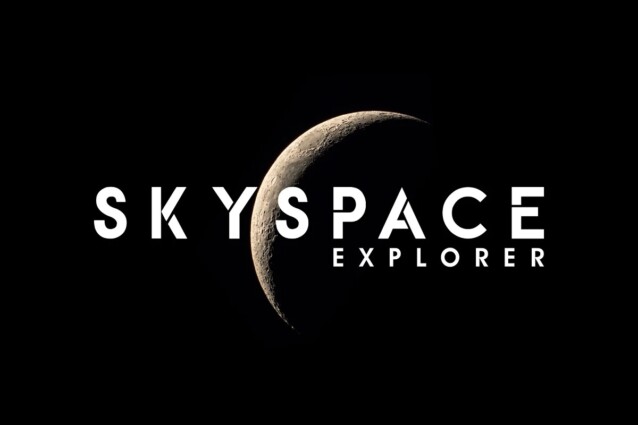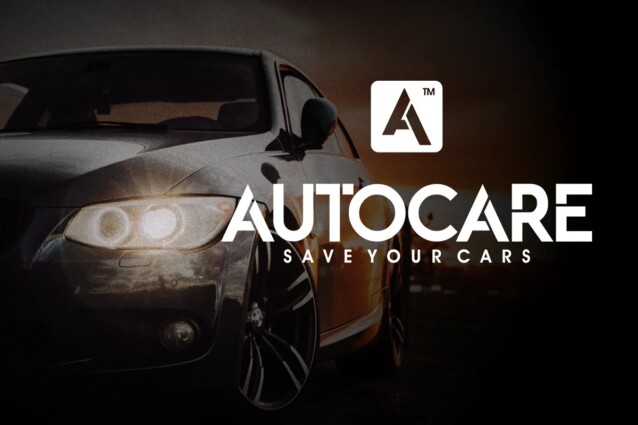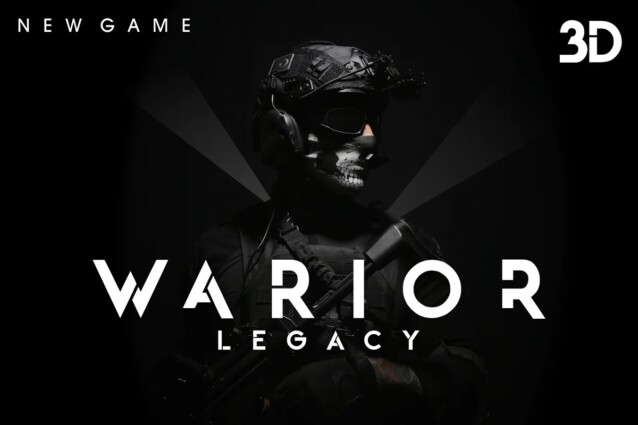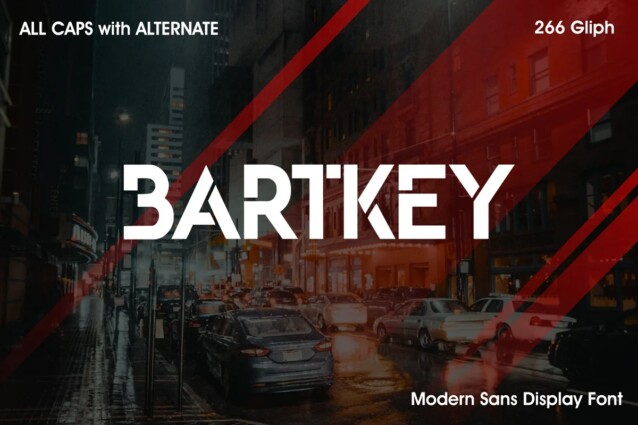
Bartkey Font
Bartkey Font is a futuristic logo font based on sans serif. It’s designed and shared by zamjumps-studio. The font is distributed in OpenType format including kerning and other features. Ideally suited for a space mood, future tech and innovative products great for big titles and small subtexts. Combine with images to really wow them humans.